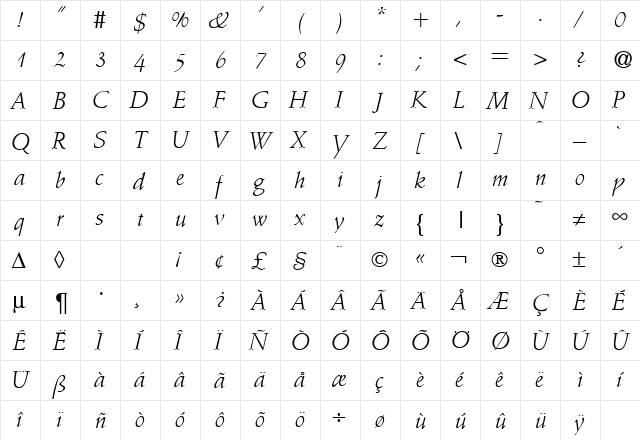
Amaryllis DB Regular
Design Context for Amaryllis DB Typeface
Amaryllis DB takes a measured approach to typography — its balanced proportions and neutral character make it a reliable workhorse for both digital and print work.